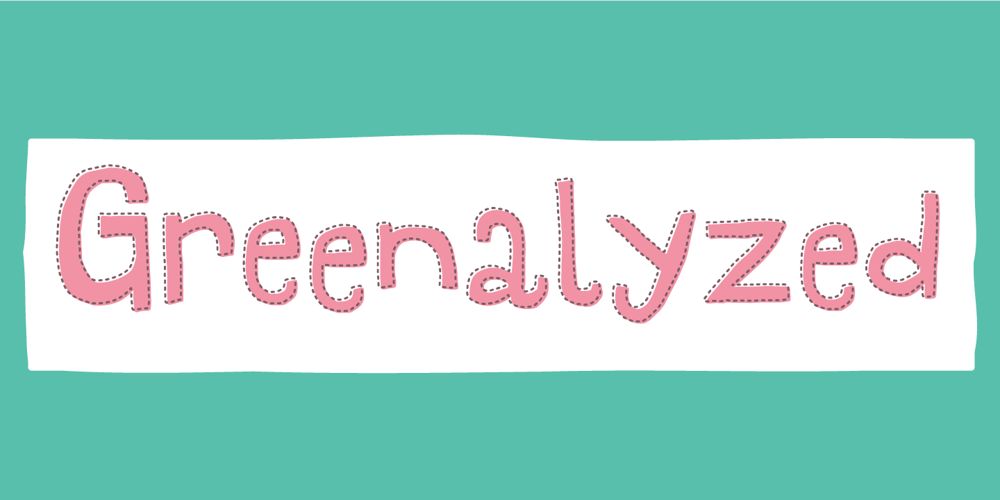
Greenalyzed Font Family was designed by Jakob Fischer and published by PizzaDude.dk. Greenalyzed contains 3 styles and family package options. Greenalyzed is a made up word is a font that could set your mind to something handmade and eco friendly. The letters are clumsy and childish naive, but really fun and legible. Comes in 3 different versions: Regular, Rough and Stitch. The Stitch version is good as a top or shadow layer. I also added multilingual support and “jumpy” ligature substitutions for the most common double letters.Enjoy!